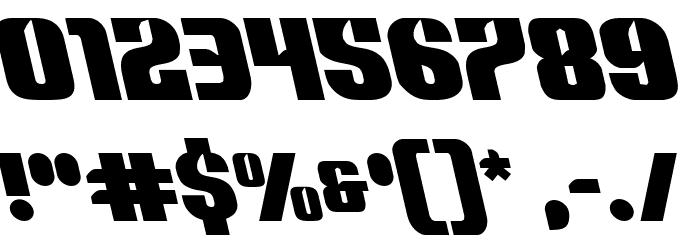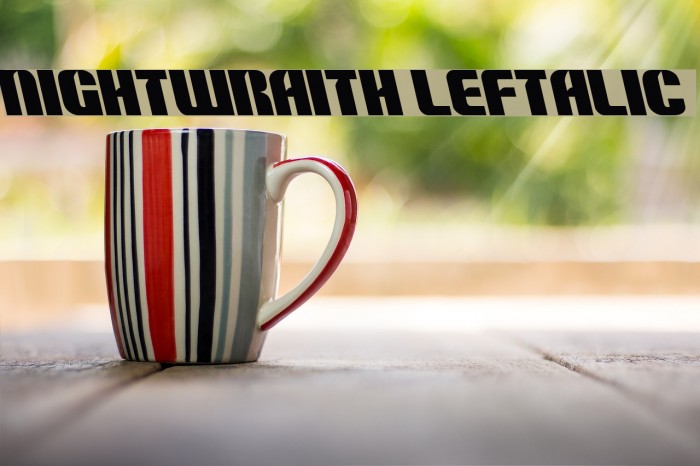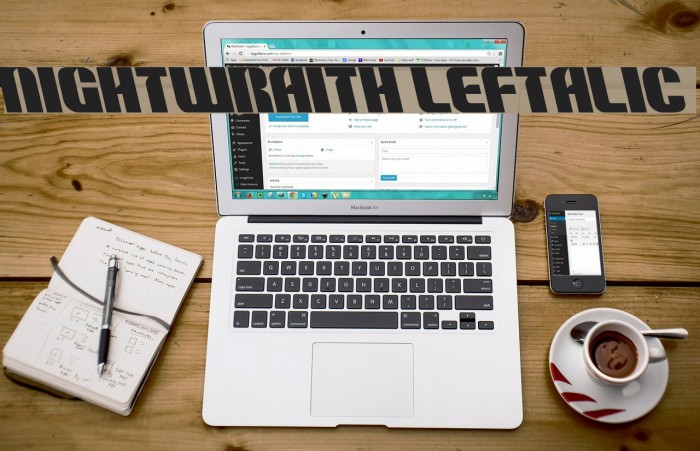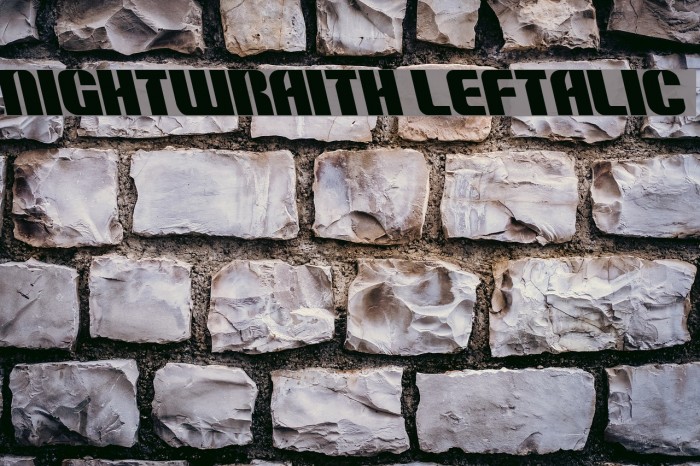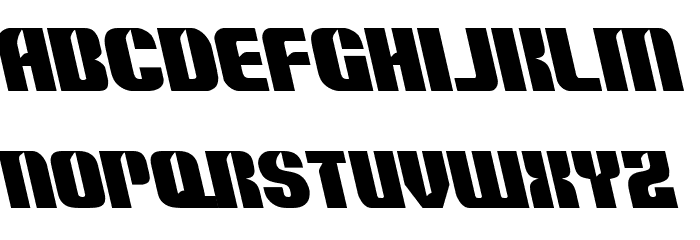
Nightwraith Leftalic Font
Nightwraith Leftalic Description
This bold and striking font features a unique, angular design with a strong presence. The characters are heavily stylized with a slanted, italicized appearance, giving them a dynamic and energetic feel. The thick strokes and geometric shapes create a sense of power and modernity, making it stand out in any design. The uppercase and lowercase letters maintain a consistent style, with sharp edges and a slightly condensed form. The numbers and special characters follow the same bold and impactful design, ensuring uniformity across all text elements.
A bold, angular font with a dynamic, italicized style from Uncategorized fonts.
- Proposed Projects: Ideal for sports branding, video game titles, posters, and any project needing a strong, modern aesthetic.